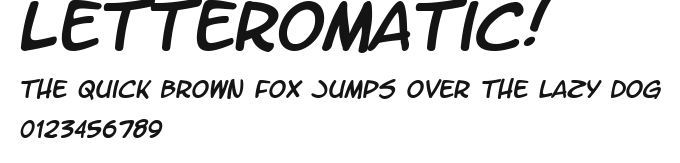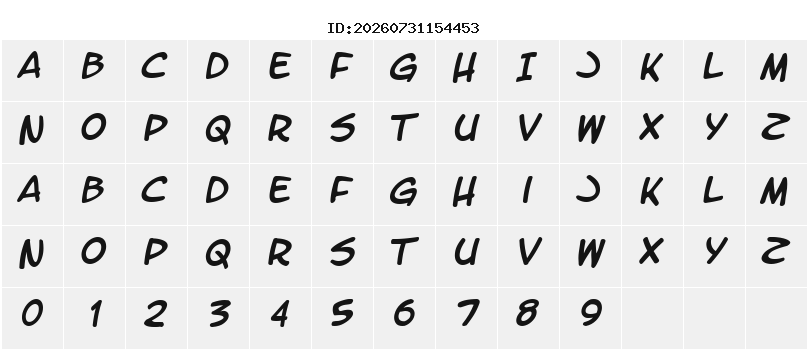
LetterOMatic! Preview
• Font Name: LetterOMatic!
• Font ID: Letter-O-Matic
• Full Font Name: LetterOMatic! Italic
• PostScript Name: LetterOMaticItalic
About LetterOMatic!.ttf
LetterOMatic!.ttf is a modern, elegant sans-serif font designed for ultimate readability and visual harmony. Perfect for branding, headlines, web design, and print materials.